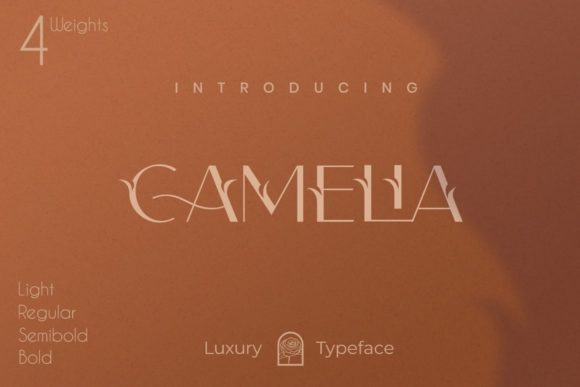
The Elusive Font: A Designer’s Love Affair with Camelia
I still remember the frustration of working on a branding project for a luxury client, searching for the perfect font that exuded elegance and sophistication. The project required a sans serif font that was not only beautiful but also highly legible. After hours of scouring font libraries, I stumbled upon Camelia – an elegant and light sans serif font that stole my heart. In this article, I’ll share my experience with Camelia, its features, and how to make the most of this stunning font.
First Impressions: A Review of Camelia
Camelia is a beautifully crafted font that has won my heart with its:
- ✨ Elegant and light sans serif design
- ✅ Highly detailed and neatly crafted glyphs
- 💡 PUA (Private Use Area) encoding for easy access to glyphs and swashes
However, no font is perfect, and Camelia has a few:
- 🤔 Limited language support – make sure to check the character set before using it for a multilingual project
- ⚠️ Some users might find the font too delicate for certain applications, such as body text in a newspaper or magazine
Unlocking Camelia’s Potential: A Practical Guide
One of the best things about Camelia is its OpenType features, which allow you to create stunning text arrangements. Here’s how to access these features on popular design platforms:
The Story Behind Camelia: Designer Inspiration
Camelia was designed with the intention of creating a beautiful, elegant sans serif font that would meet the needs of designers seeking a refined and sophisticated typeface. The designer’s inspiration came from classic typography, combined with modern digital design principles. The result is a font that exudes luxury, elegance, and refinement.
| What is PUA encoding, and how does it benefit font users? | PUA (Private Use Area) encoding allows font designers to include additional glyphs and characters that are not part of the standard Unicode character set. This means that users can access a wider range of glyphs, swashes, and stylistic alternates, making it easier to create unique and creative text arrangements. |
| Is Camelia suitable for body text? | While Camelia is a beautiful font, it may not be the best choice for body text due to its delicate nature. It’s better suited for headings, titles, and short paragraphs where its elegance and sophistication can shine. |